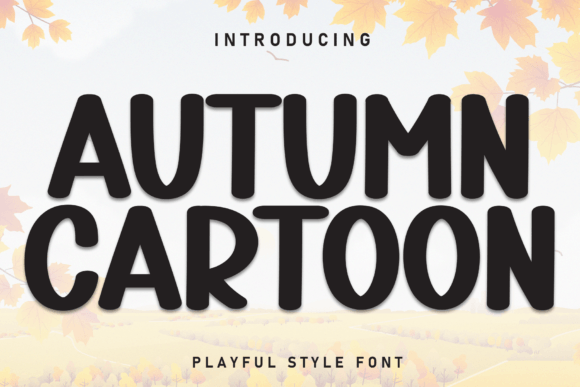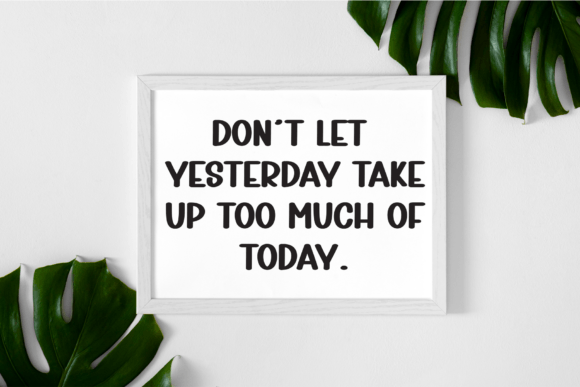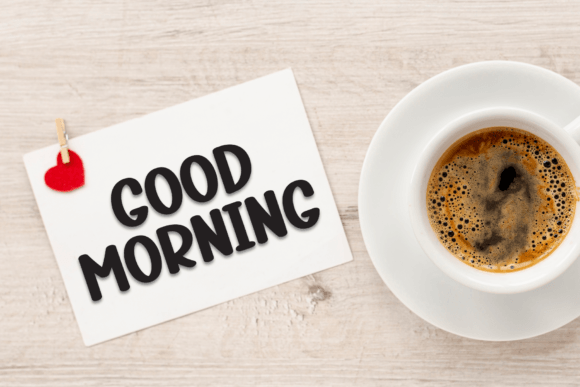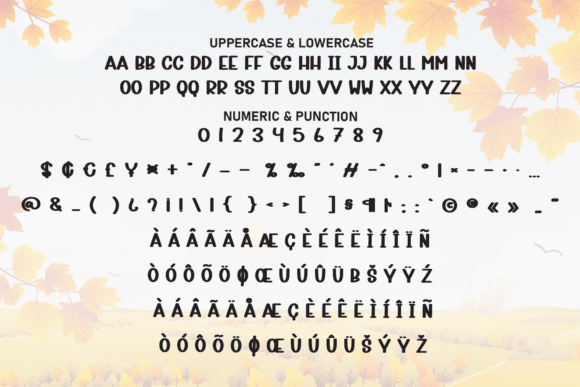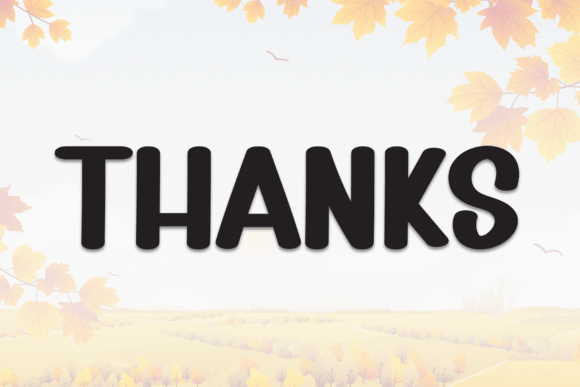
Autumn Cartoon Font
Autumn Cartoon is a playful and fun handmade display font. Its letters are bold and round, perfect for adding a cheerful touch to designs. Ideal for kids’ projects, cartoons, or any creative work that needs a lighthearted feel.